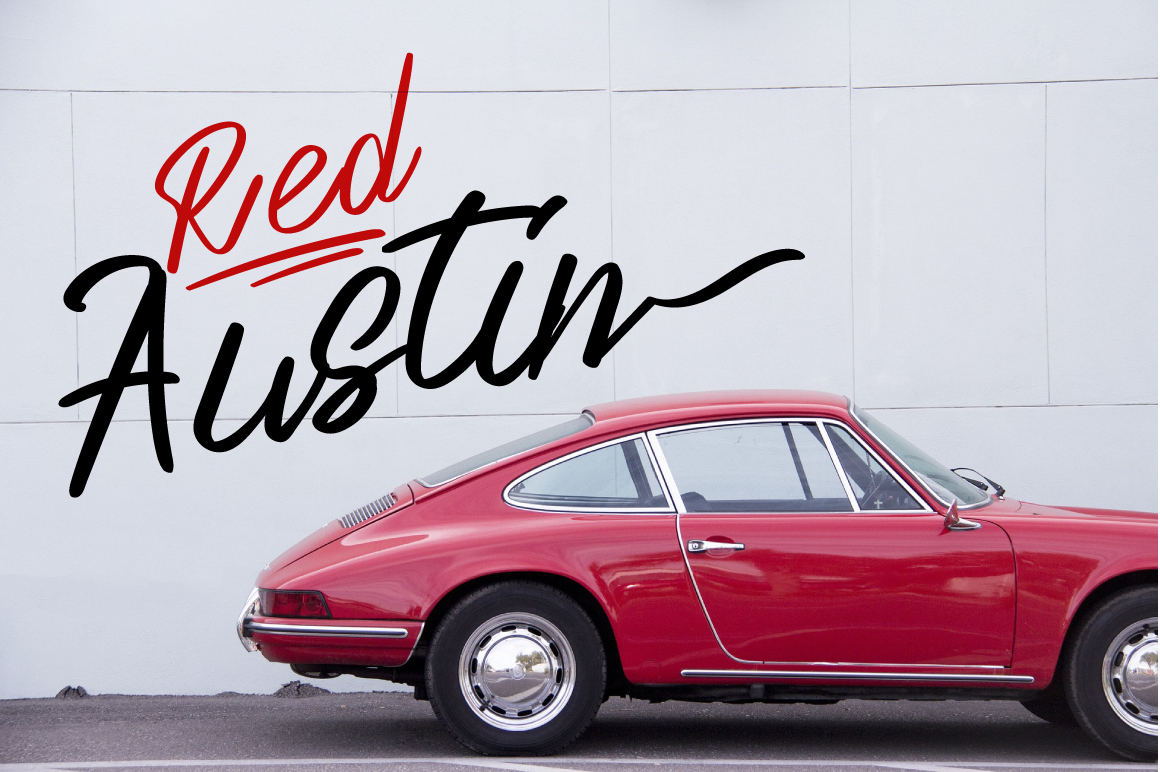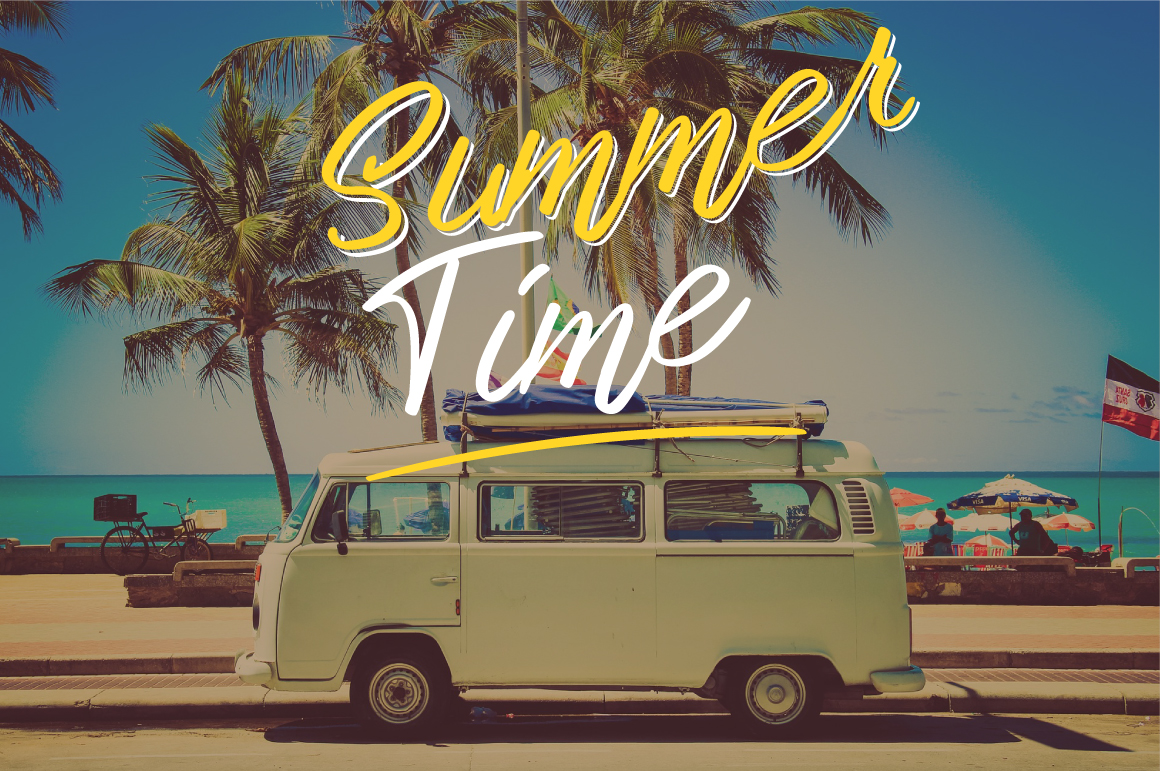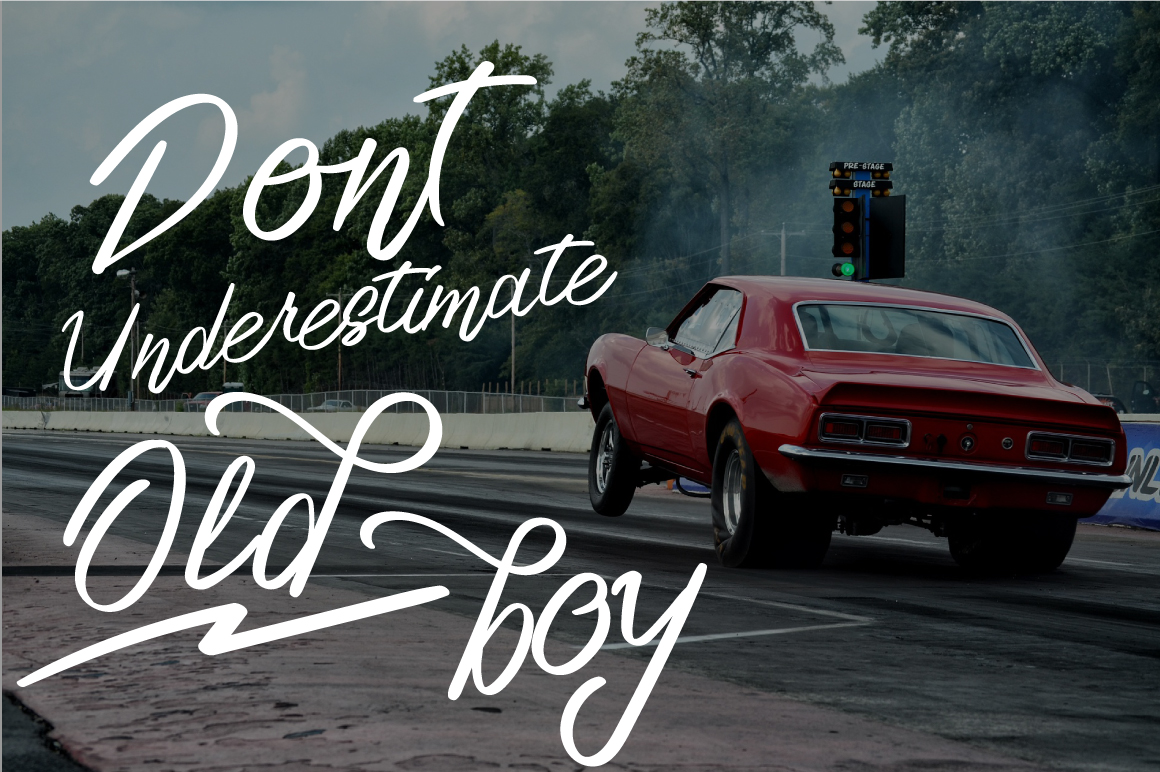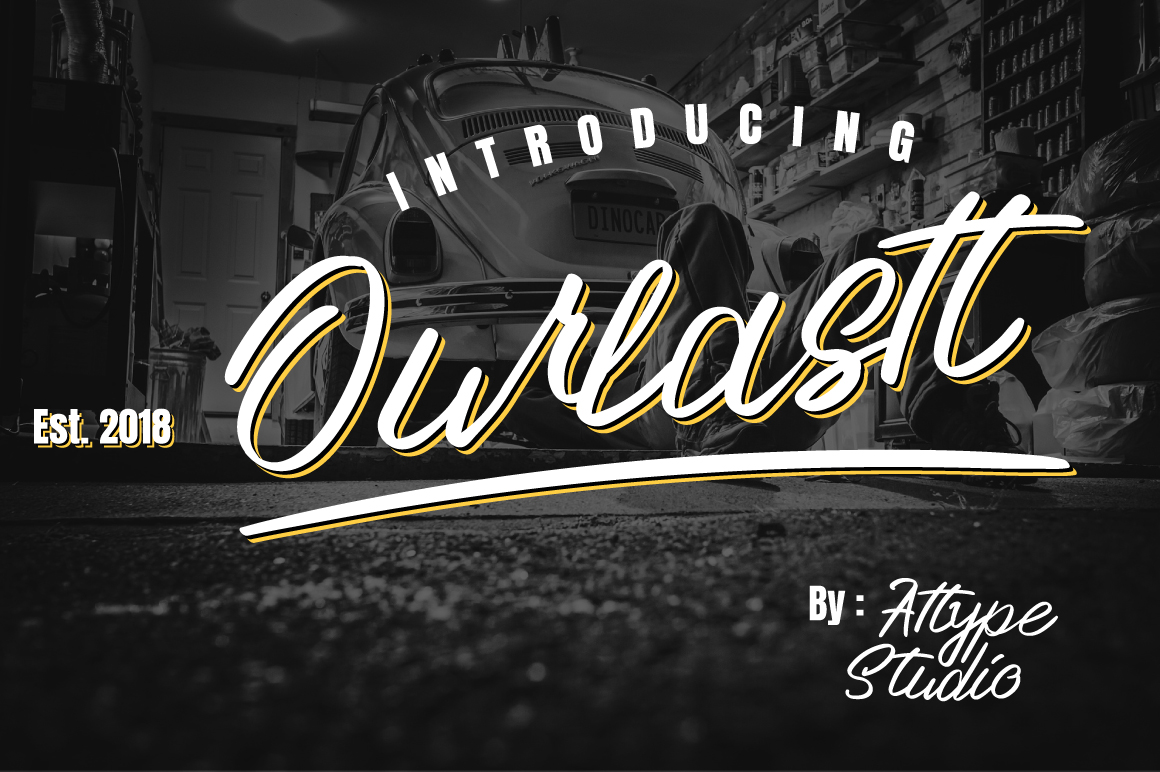
Ourlastt Script Font
Introducing Ourlastt Font. Ourlastt is font is a modern handlettering script with dramatic movement. It’s allowing you to create beautiful hand-made typography. Ourlastt is perfect for branding, logo, wedding designs, social media posts, advertisements, product packaging, product designs, photography, invitation, stationery and any projects that need handwriting taste.